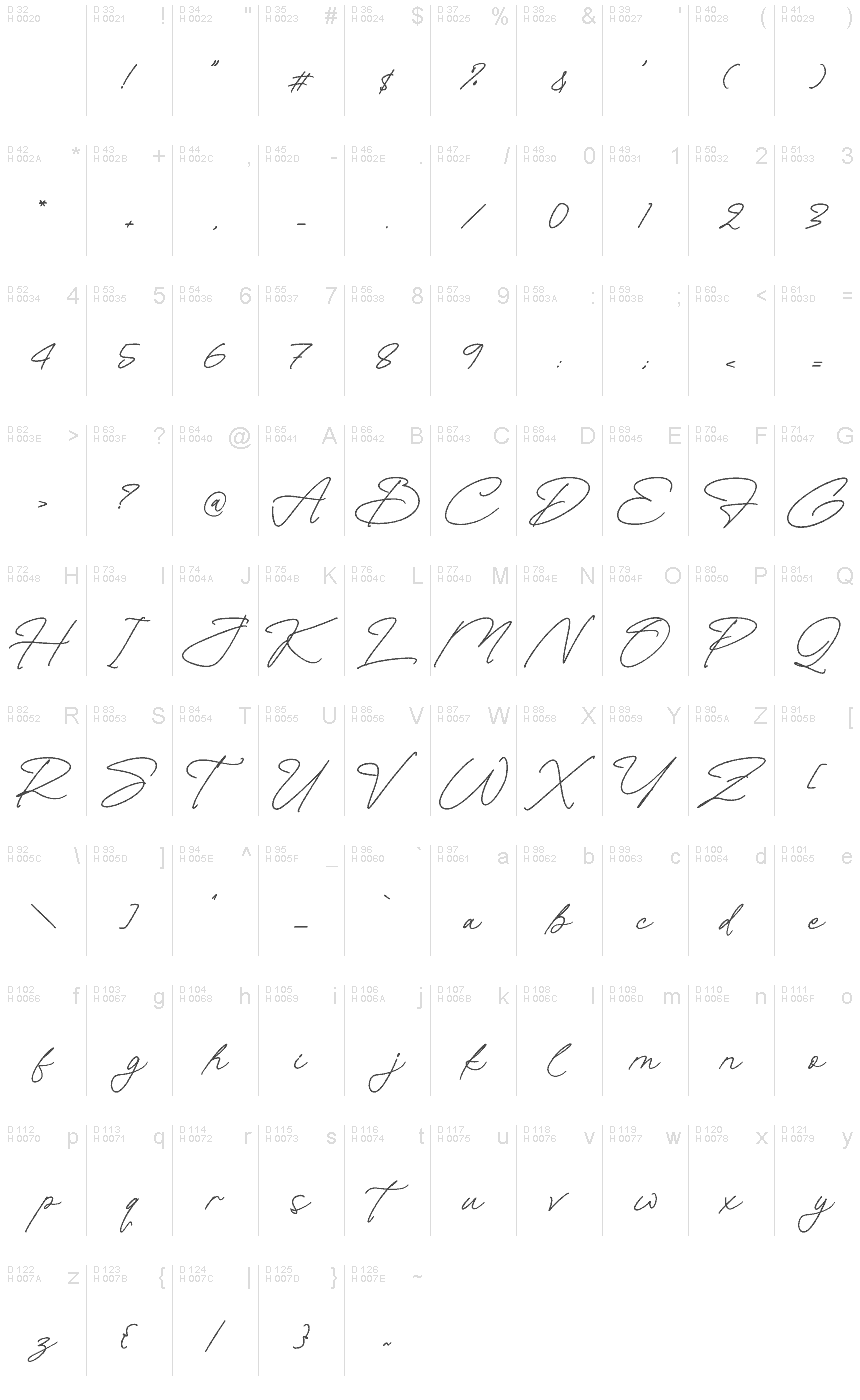
Sontheval
Sontheval font by Letterena Studios is a splendid cursive typeface that exudes elegance and sophistication. A combination of light and fluid strokes form graceful letter shapes and make a luxurious impression on all viewers. The contrast between the streamlined characters and the smooth flow from one to another is put at an artistic advantage, perfect for demanding projects.